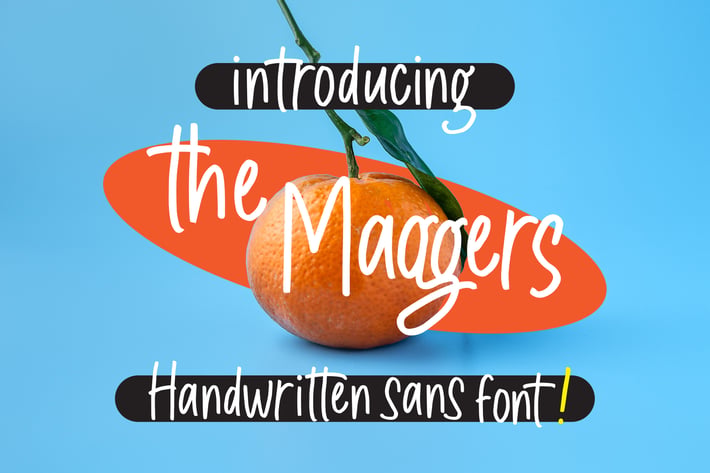
The Maggers - Handwritten Sans Font
The Maggers is perfect to use for Logotype, Letterhead, Poster, Apparel Design, Label and etc.
The alternative characters were divided into several features such as Stylistic Alternates and Ligature.
- All Alternates
- Standard Ligatures